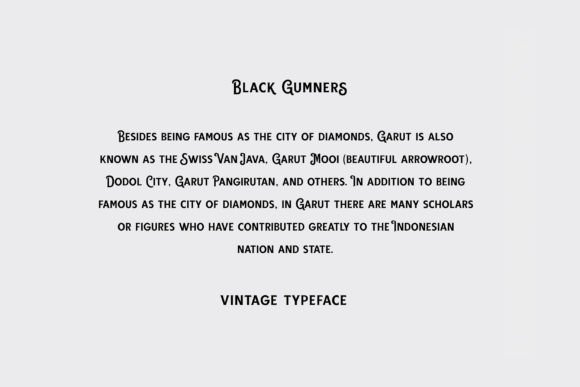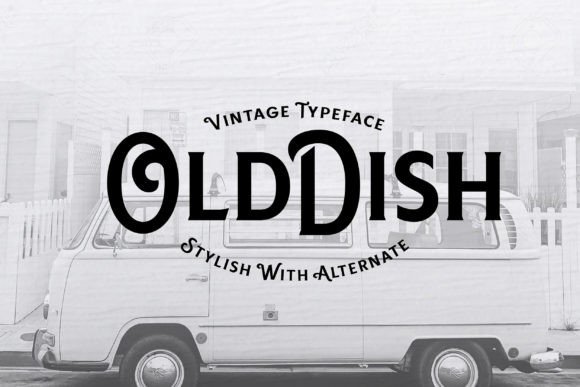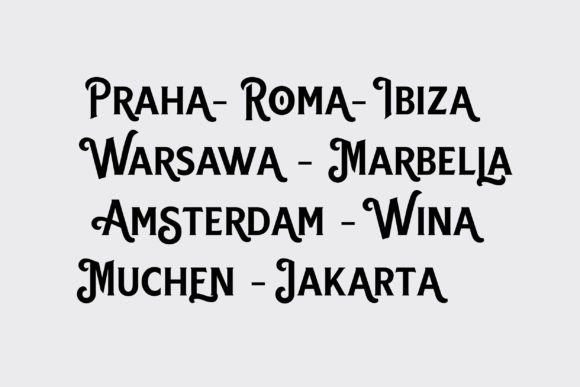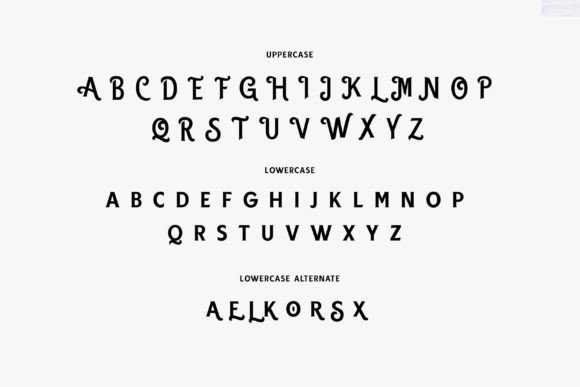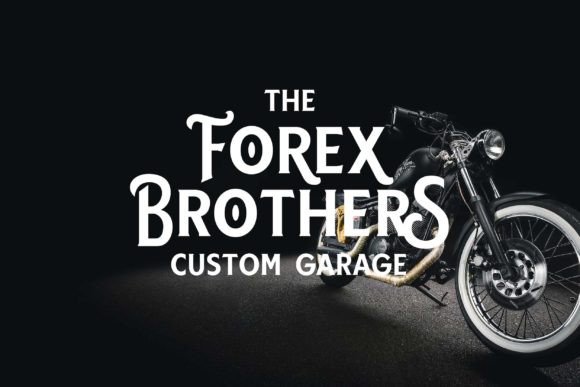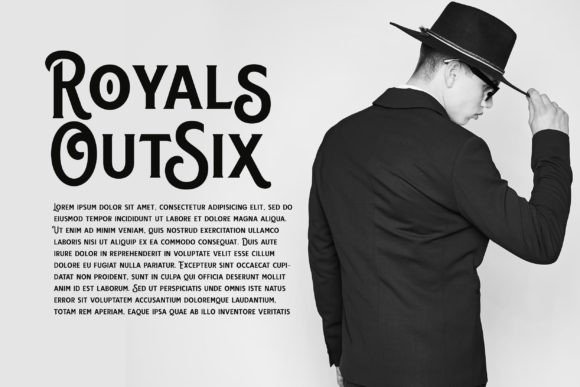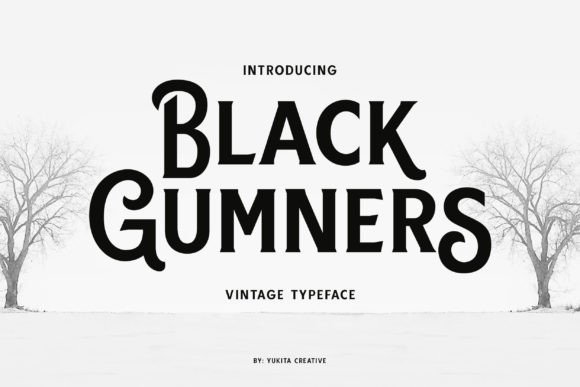
The Designer’s Delight: Black Gumners Font
I’ll never forget the moment I stumbled upon Black Gumners Font while working on a vintage-themed project for a client. I had been searching for the perfect font to give my design that authentic, nostalgic feel, but everything I found seemed either too modern or too over-the-top. That was until I laid eyes on Black Gumners – its elegant, natural style instantly captured my attention, and I knew I had found the one.
So, what makes Black Gumners so special? Let’s dive into the good stuff and, of course, a few quirks I’ve noticed.
- ✨ Elegant and Natural Style: Black Gumners boasts a truly unique, vintage aesthetic that’s perfect for a wide range of creative projects.
- ✅ Highly Versatile: Whether you’re working on a logo, a poster, or a website, this font adapts beautifully to different contexts.
- 💡 Inspires Creativity: There’s something about Black Gumners that sparks imagination, helping you transform your ideas into authentic pieces of art.
While Black Gumners is an amazing font, there are a couple of things to keep in mind:
- 🤔 Legibility at Small Sizes: Like many display fonts, Black Gumners can get a bit tricky to read when scaled down. It’s best used at larger sizes for maximum impact.
- ⚠️ Limited Use in Body Text: Due to its stylized nature, Black Gumners isn’t ideal for lengthy body text. Stick to headings, titles, and short paragraphs for the best results.
While the origins of Black Gumners might not be well-documented, it’s easy to imagine that its designer was inspired by the timeless elegance of vintage typography. Perhaps a stroll through old town, surrounded by ancient gums and classic facades, sparked the idea. The result is a font that feels both nostalgic and refreshingly modern.
Q: Is Black Gumners suitable for body text?
A: No, Black Gumners is best used for headings, titles, and short paragraphs due to its stylized nature.
Q: Does Black Gumners support OpenType features?
A: Yes, Black Gumners supports OpenType features, including glyphs and stylistic alternates, which can be accessed in compatible design software.